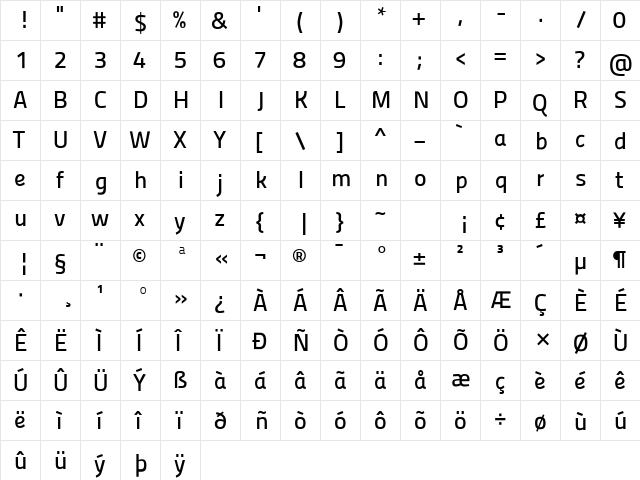
Panefresco 600wt Regular
| Foundry | Campivisivi & Chank Co |
| Designer | Campivisivi |
Design Context for Panefresco 600wt Typeface
Panefresco 600wt is a composed and adaptable typeface that performs quietly and consistently across a wide range of design contexts.